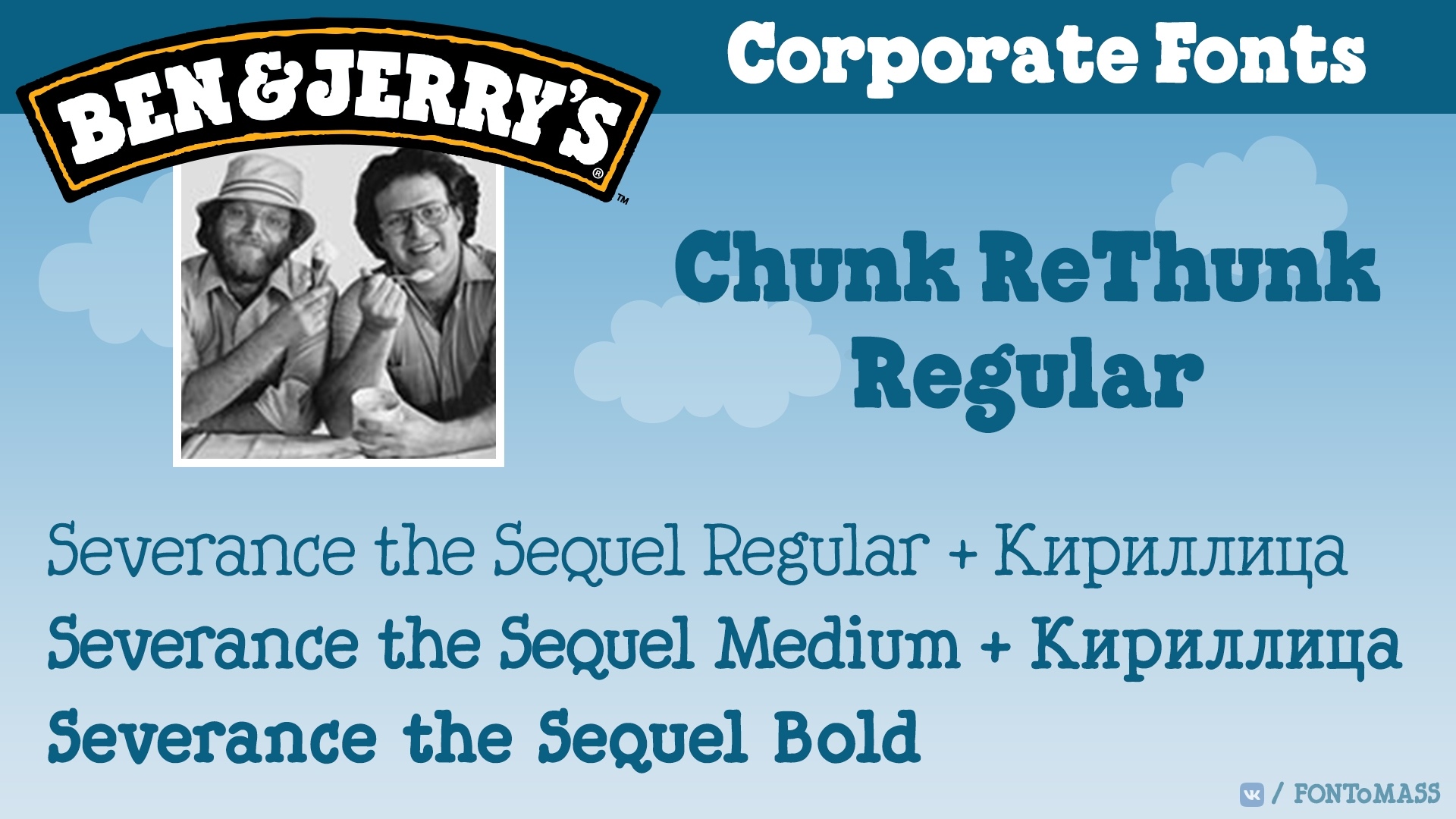
Ben & Jerry's Corporae Fonts
This font is perfect for a wide range of creative projects, including branding, advertising, social media posts, merchandise design, and website headlines. Its friendly yet professional appearance makes it incredibly versatile.
What makes this font so exciting is its playful character, which manages to be both fun and highly readable. Inspired by the iconic Ben & Jerry's brand, it brings a sense of joyful nostalgia to any design. Its unique, hand-drawn feel stands out from standard corporate fonts, giving your work a fresh and approachable vibe.
The Ben Jerry's Corporate Fonts family includes multiple weights and styles, such as Regular, Bold, and Italic. This family provides you with the flexibility to create a cohesive and dynamic visual identity.